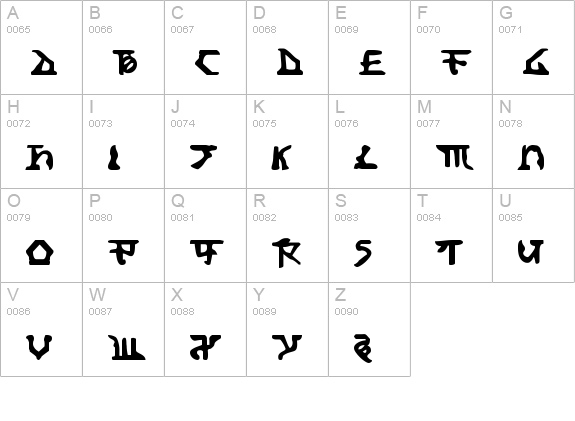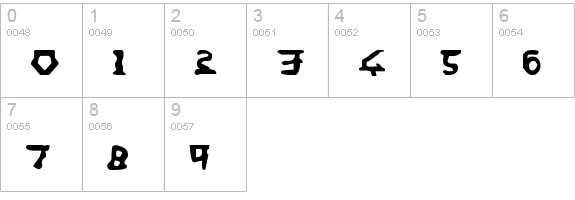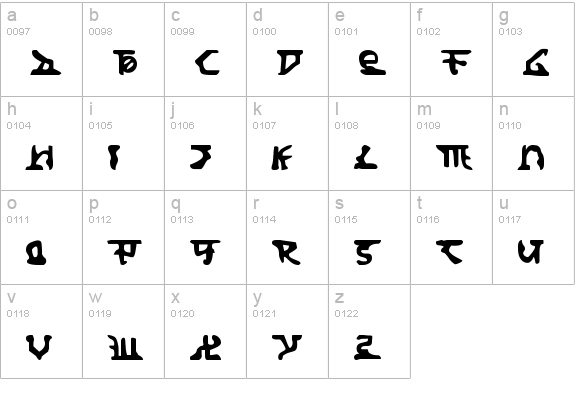
Homeworld Translator Font Details
The Homeworld Translator font is a captivating and futuristic typeface that transports you to another realm with its sleek and elegant design. Perfect for projects related to science fiction, technology, or outer space, this font brings a touch of otherworldly charm to your creations. Its unique and intricate symbols make it ideal for adding a touch of mystery and sophistication to your designs. And the best part? The Homeworld Translator font is completely free to download at FontsMarket.com! With just a few clicks, you can enhance your projects with this stunning font without having to spend a dime. So why wait? Bring a touch of the cosmos to your designs today with the Homeworld Translator font.